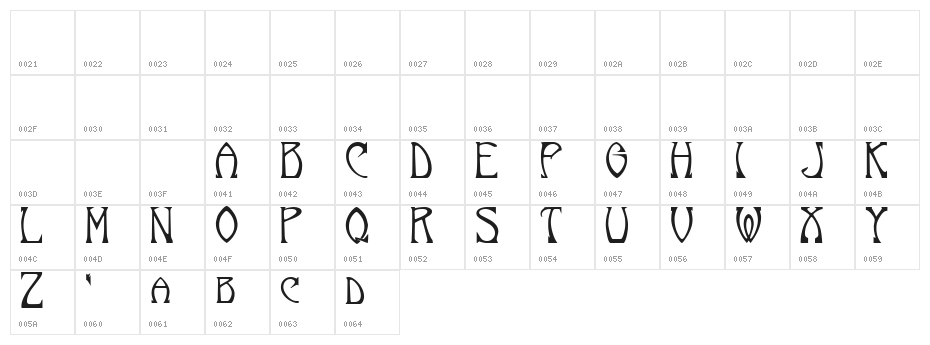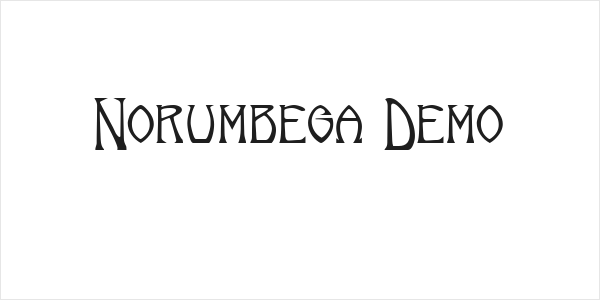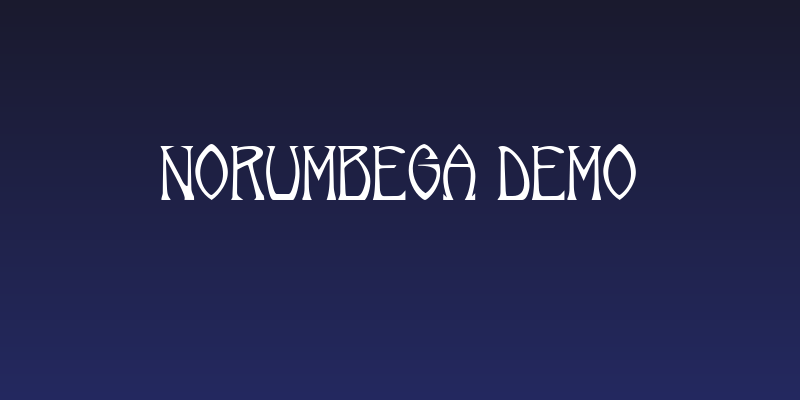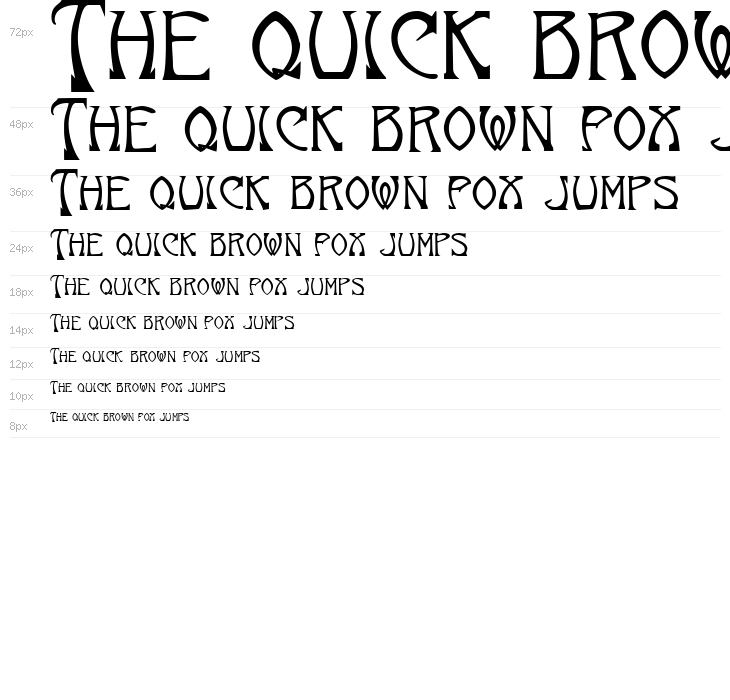
Norumbega Demo Font
Norumbega Demo Description
This font features a unique and decorative style with intricate details and sharp angles. The characters exhibit a medieval or fantasy-inspired aesthetic, characterized by bold strokes and pointed serifs. The uppercase letters are particularly ornate, with exaggerated curves and flourishes that give the font a dramatic and eye-catching appearance. The overall design is both artistic and legible, making it suitable for creative projects that require a distinctive and memorable typeface.